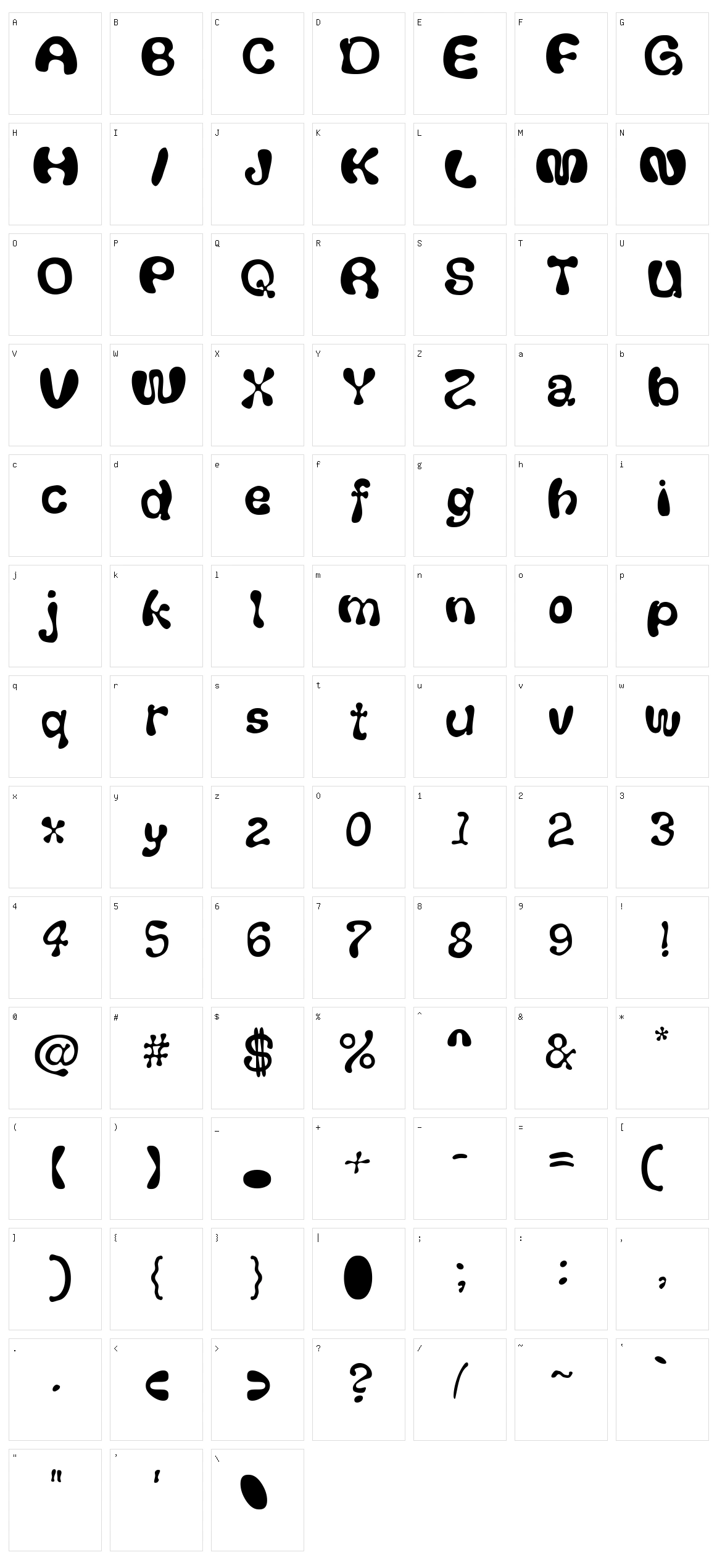
What can I say. This font is really round.
There are some similar looking fonts floating around, which proves how little creativity it takes to open Helvetica in Fontographer, select all, and hit command-8.
Okay, there might be a little more to this font than that.
BTW, fonts in the 60's and 70's did not look like this. You can even check.